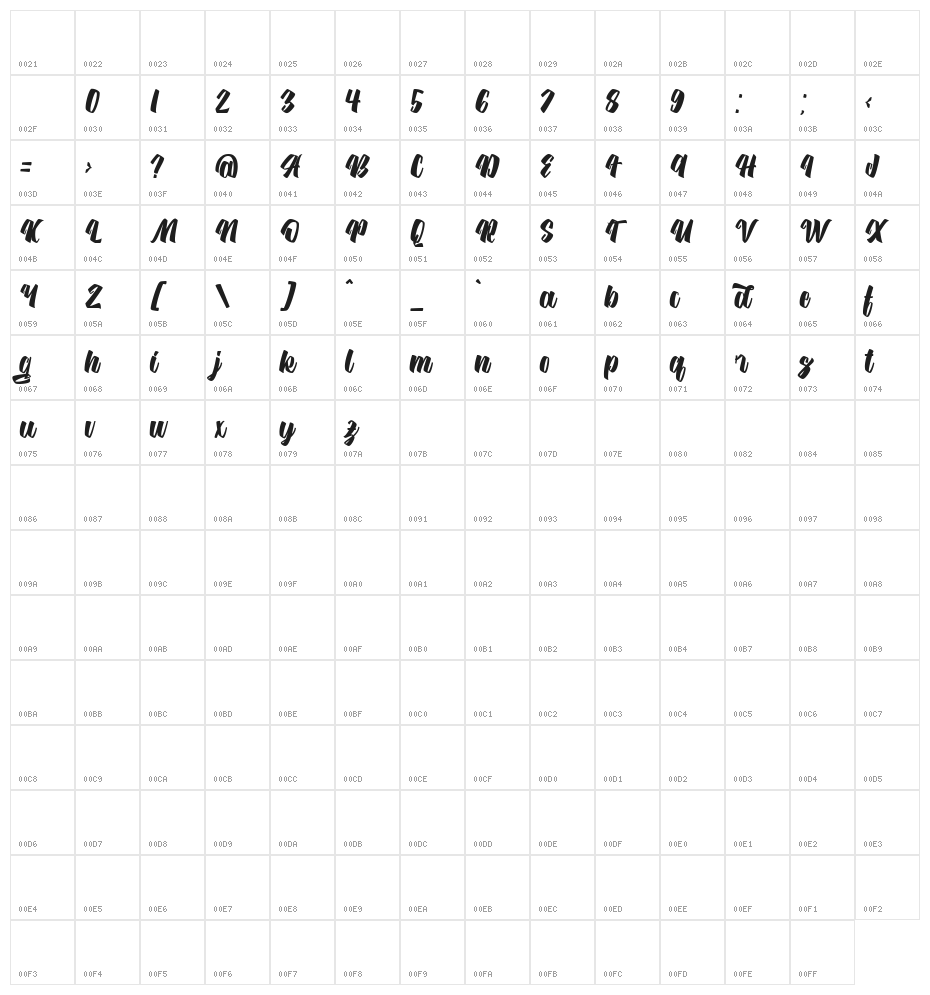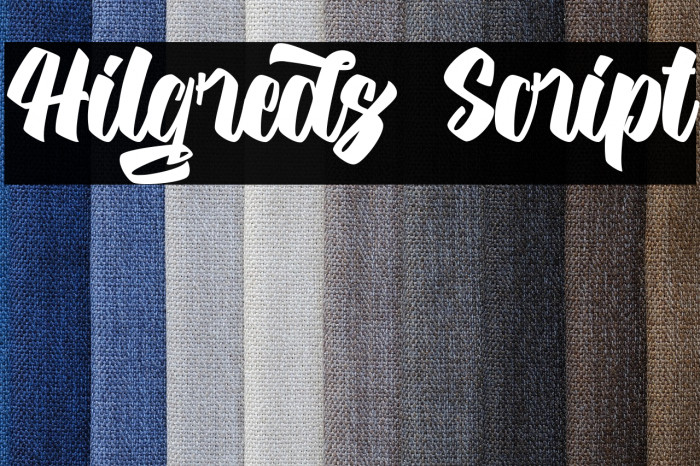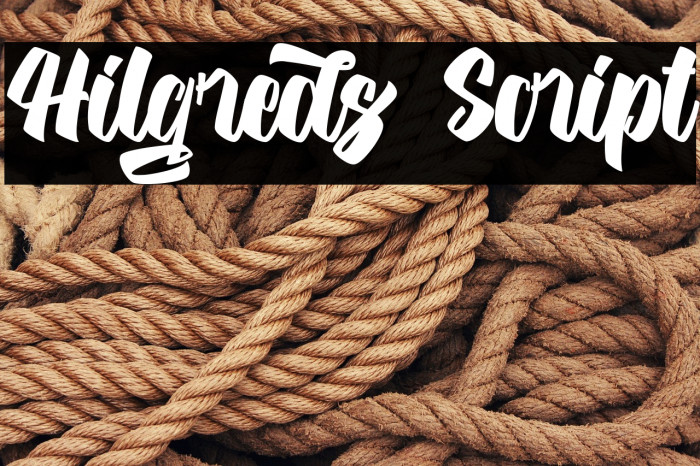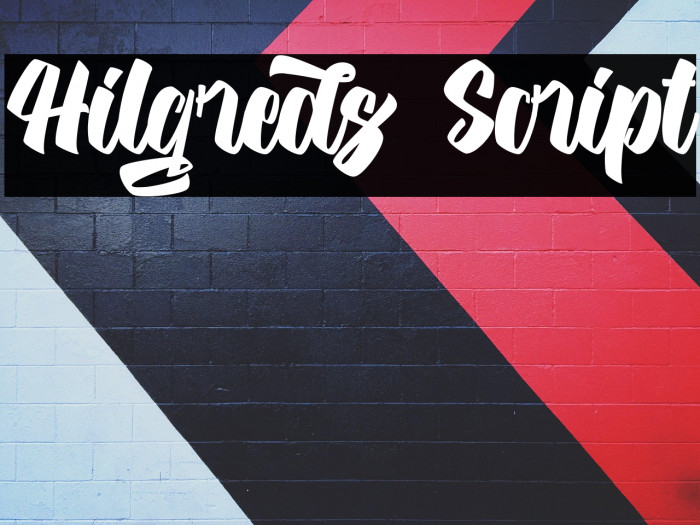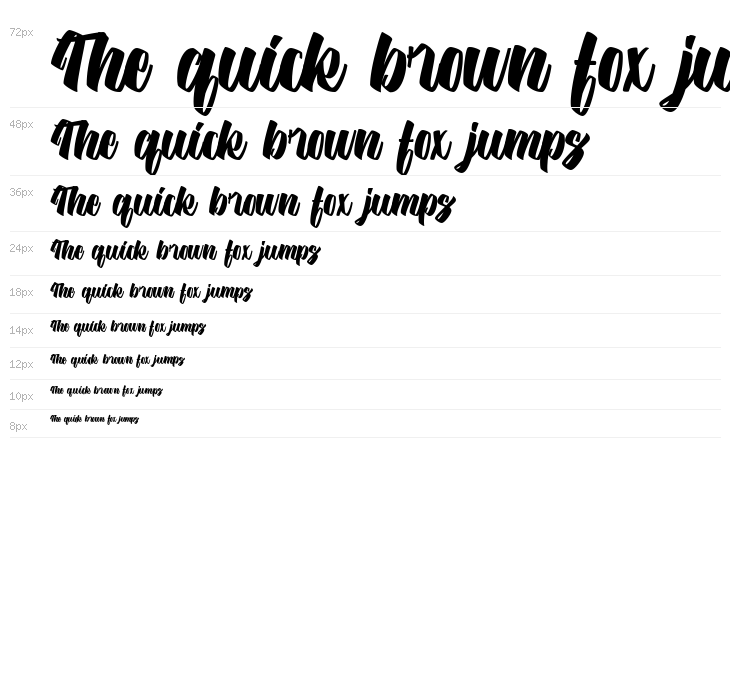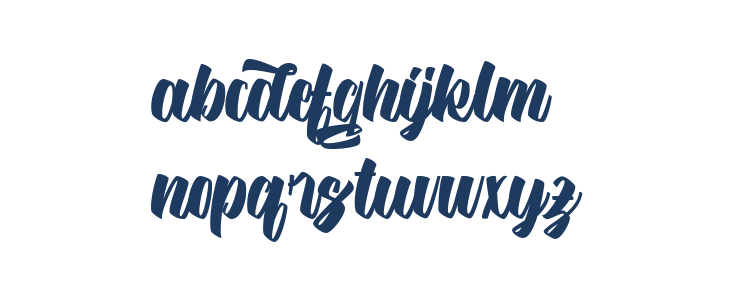
Hilgreds Script Font
Hilgreds Script Description
This font features a bold, flowing script style that exudes elegance and dynamism. The characters are interconnected with smooth, sweeping strokes, creating a sense of movement and fluidity. The uppercase letters are particularly striking, with dramatic flourishes that enhance their visual impact. The lowercase letters maintain a consistent rhythm, complementing the uppercase with their graceful curves. The numbers and special characters are designed to match the overall aesthetic, ensuring a cohesive look across all text elements. This font is ideal for projects that require a touch of sophistication and flair.
| Overall Style | Elegant, Dynamic |
| Use Case | Logos, Invitations, Branding |
| Proposed Projects | Ideal for wedding invitations, branding, logo design, and elegant packaging. |